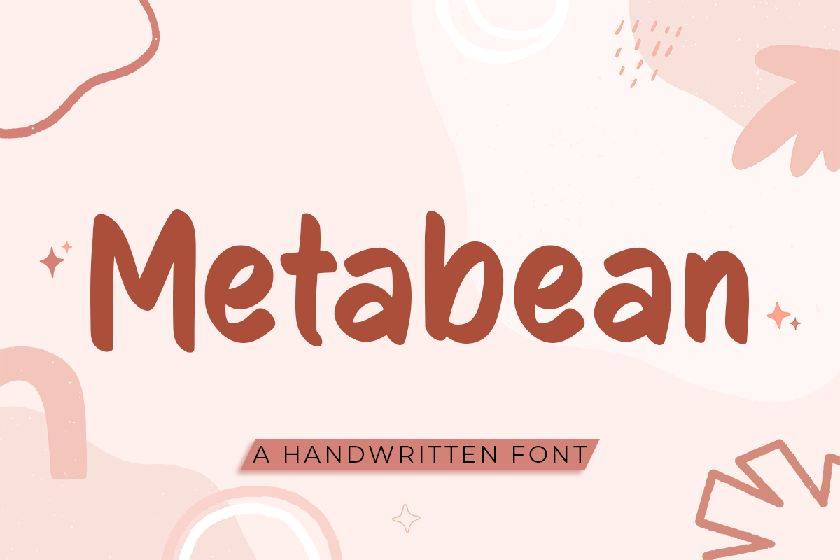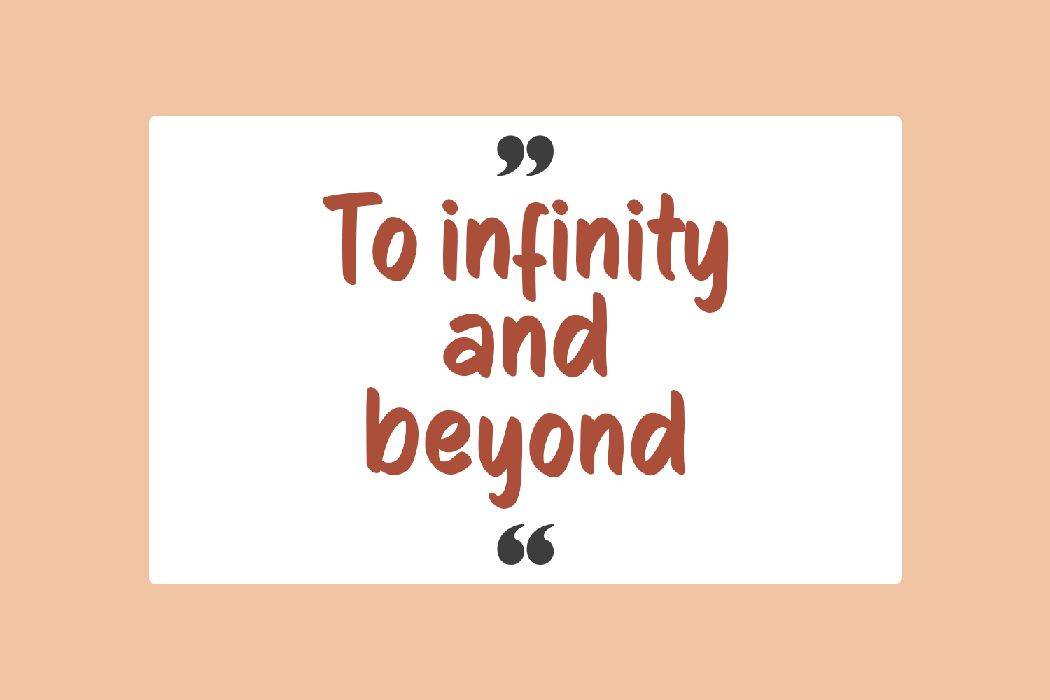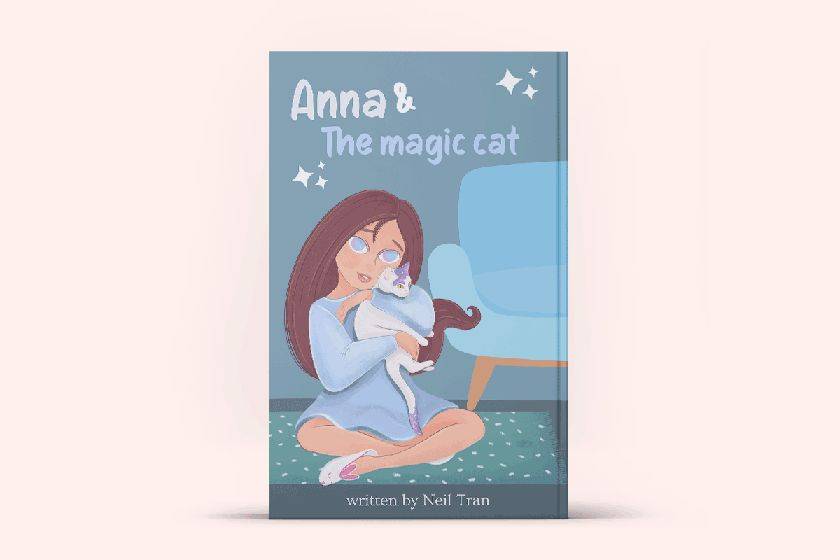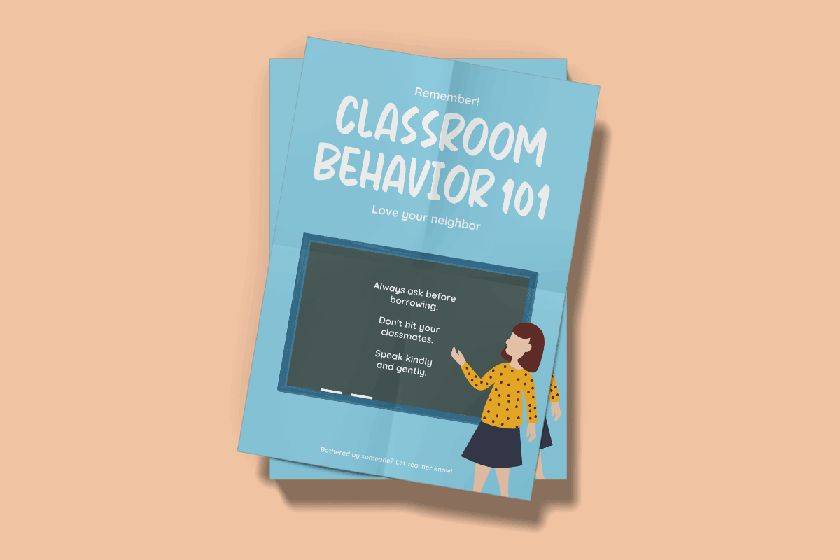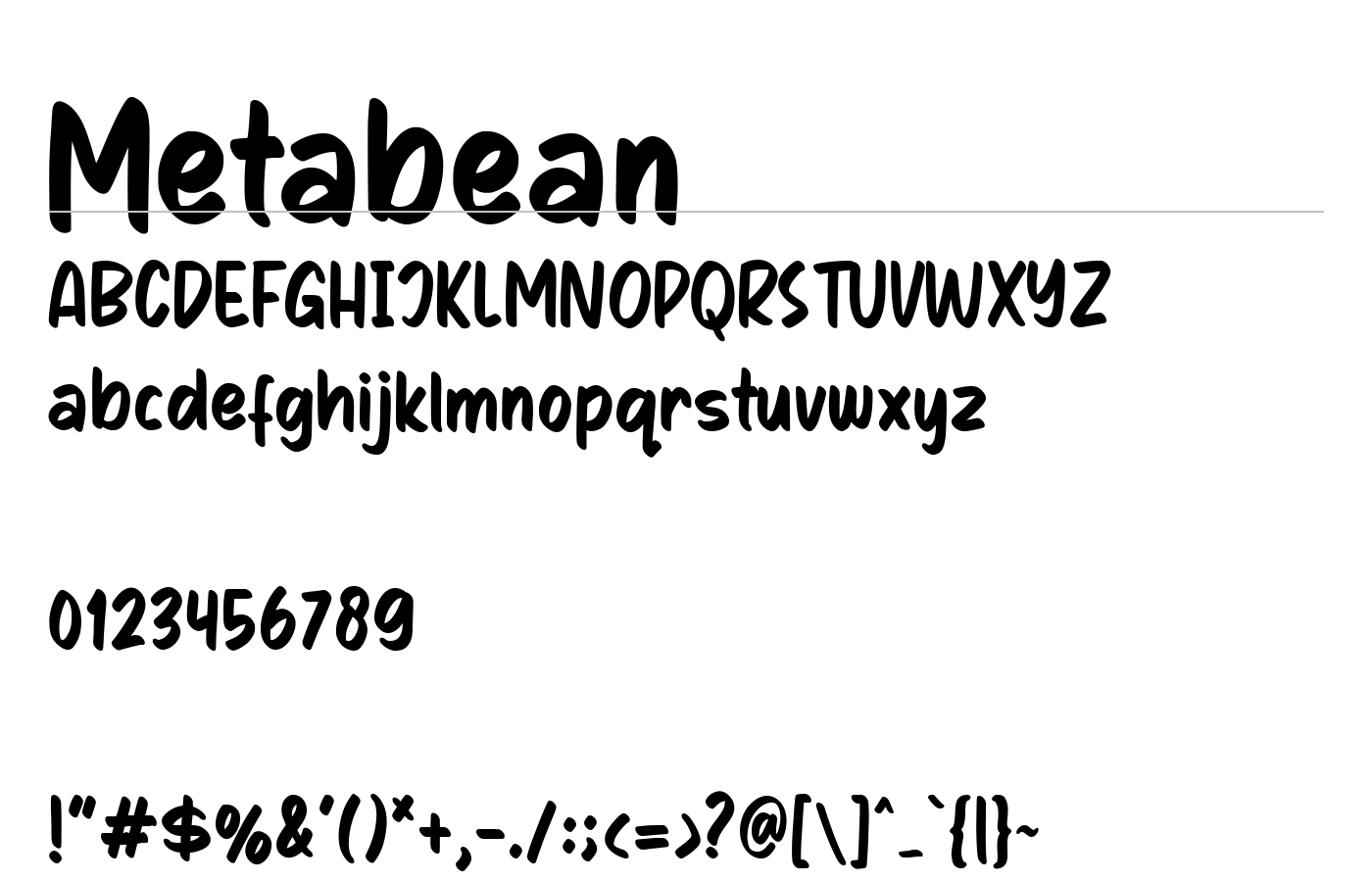
Metabean is a playful and friendly handwritten sans serif font with a casual, organic feel. Its rounded, slightly irregular letterforms give it a warm and approachable personality, making it ideal for creative projects, children’s content, and informal branding. This font works well in headlines, logos, and packaging where a relaxed, personal touch is desired.
Metabean Font
About Metabean Font
| Font family | Metabean Font |